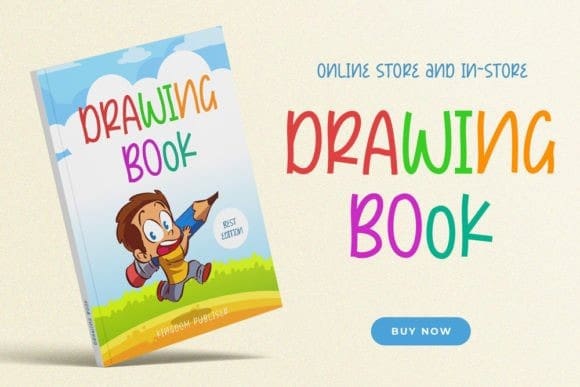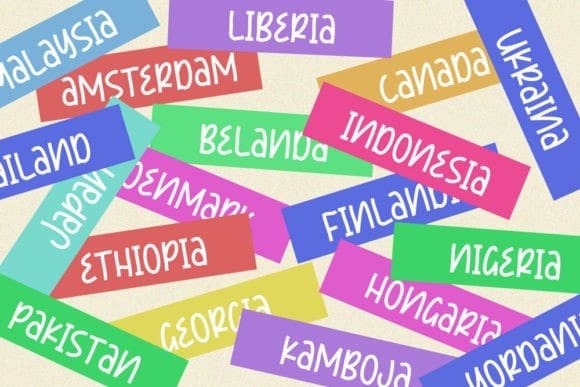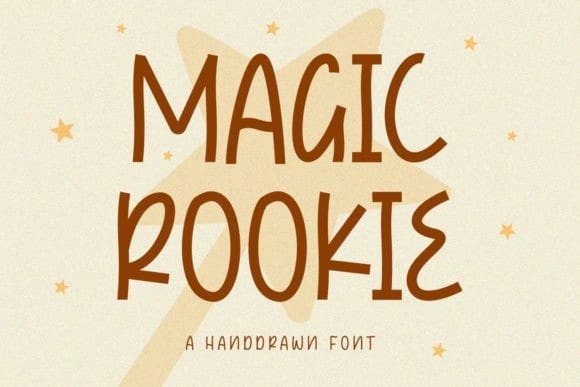
Magic Rookie Font
Magic Rookie Font a new playful display font, MagicRookie. This font suitable for logos, packaging designs, posters, business card, cover, broadcast, quotes, books, etc.